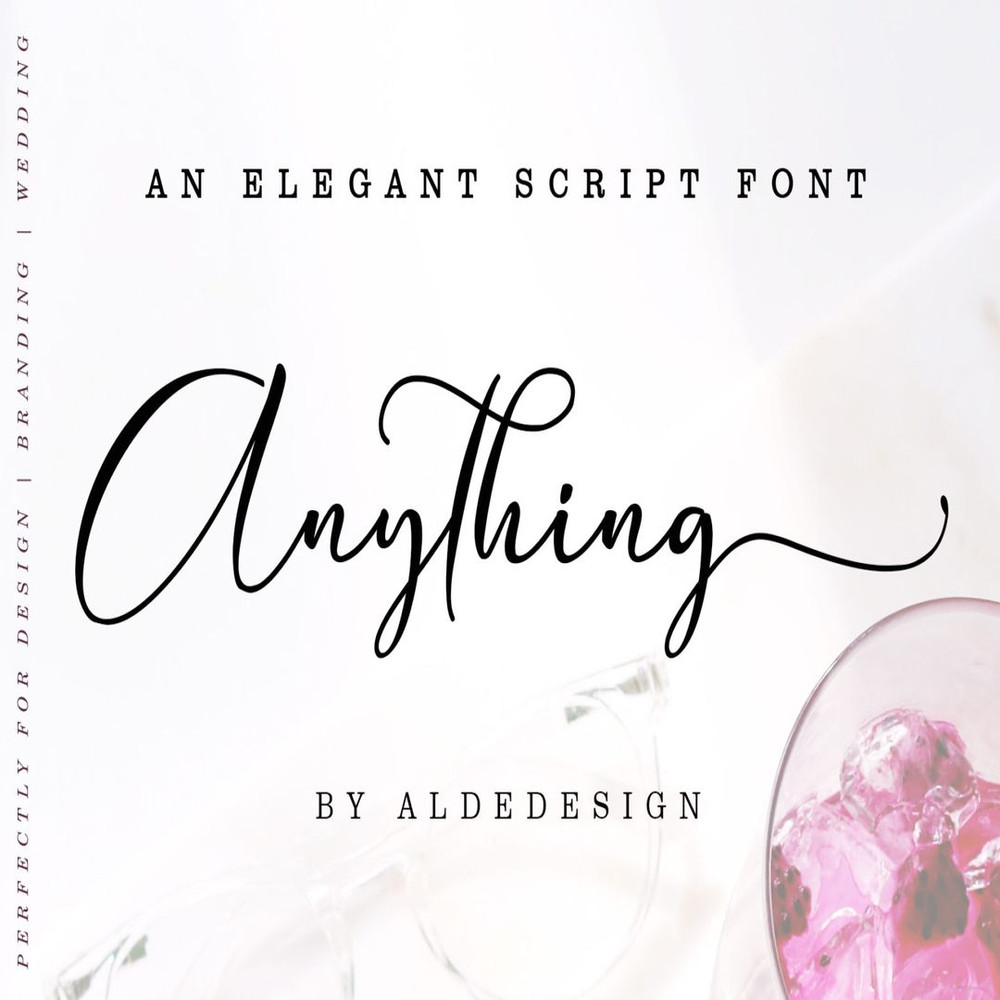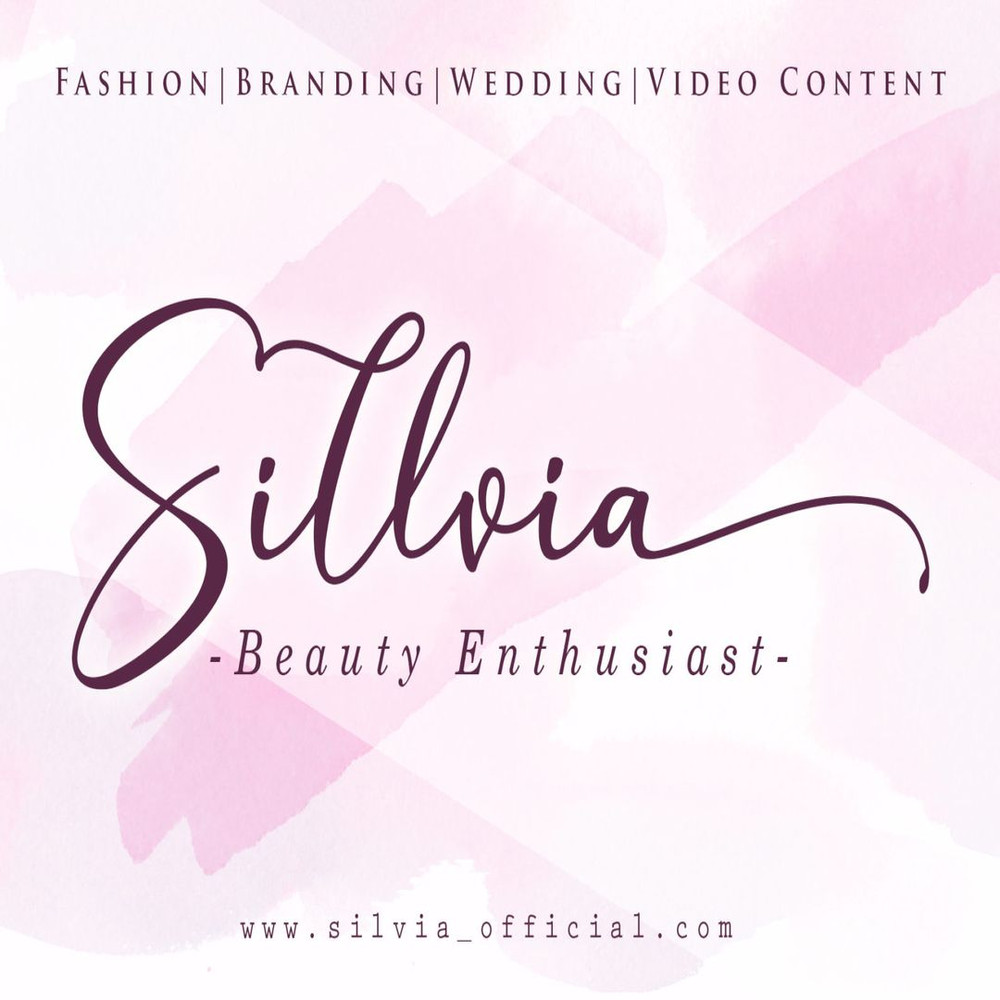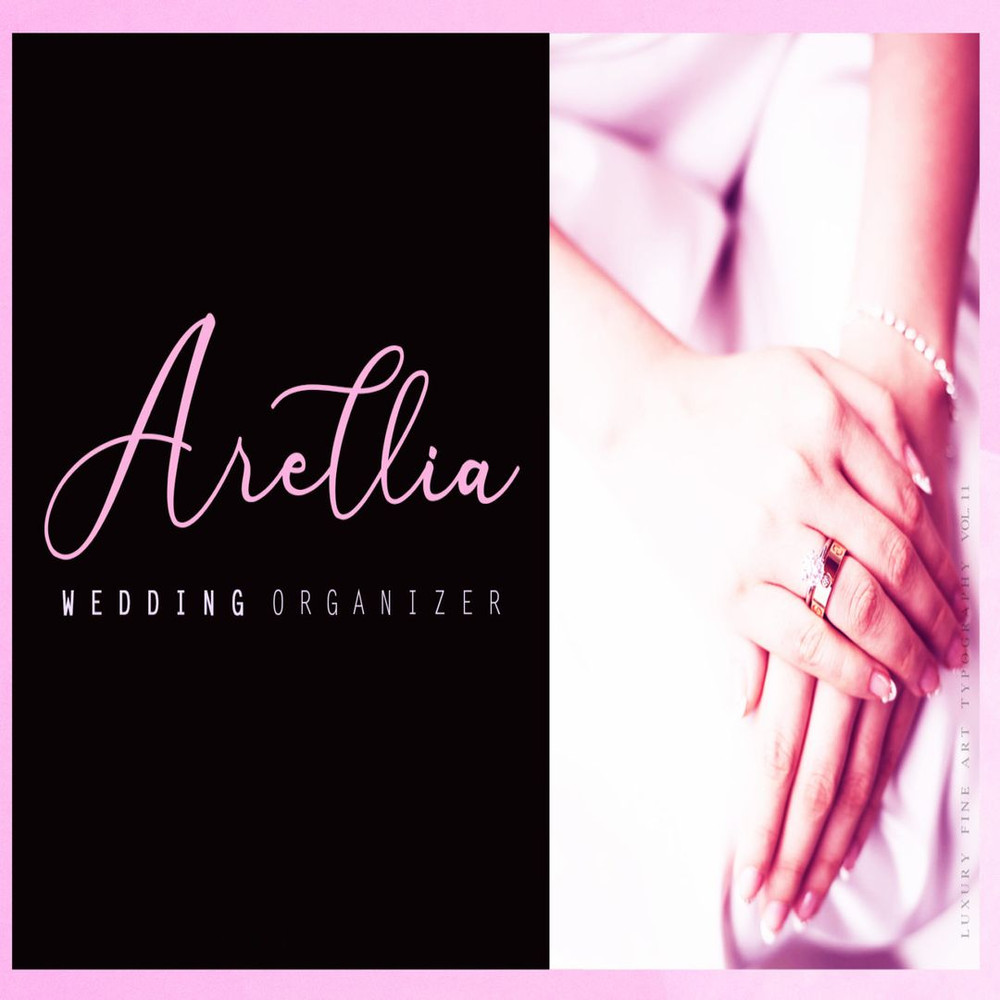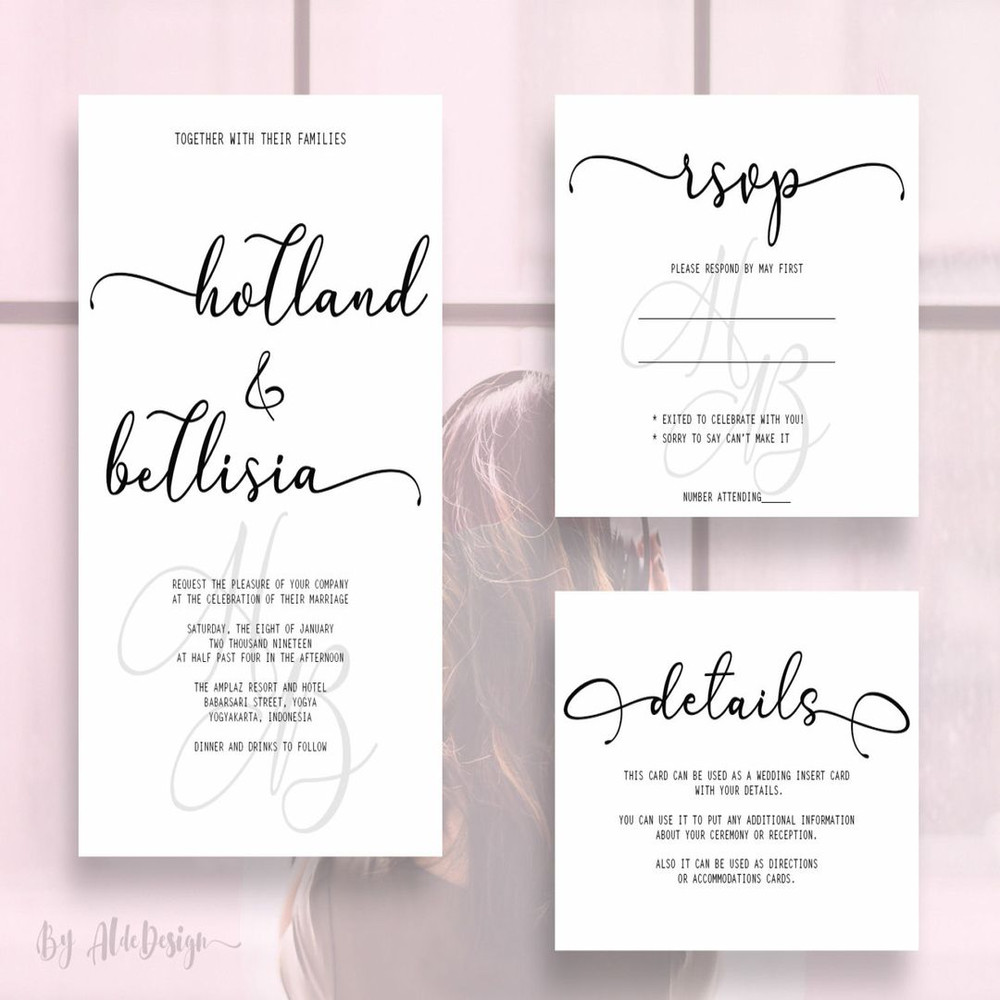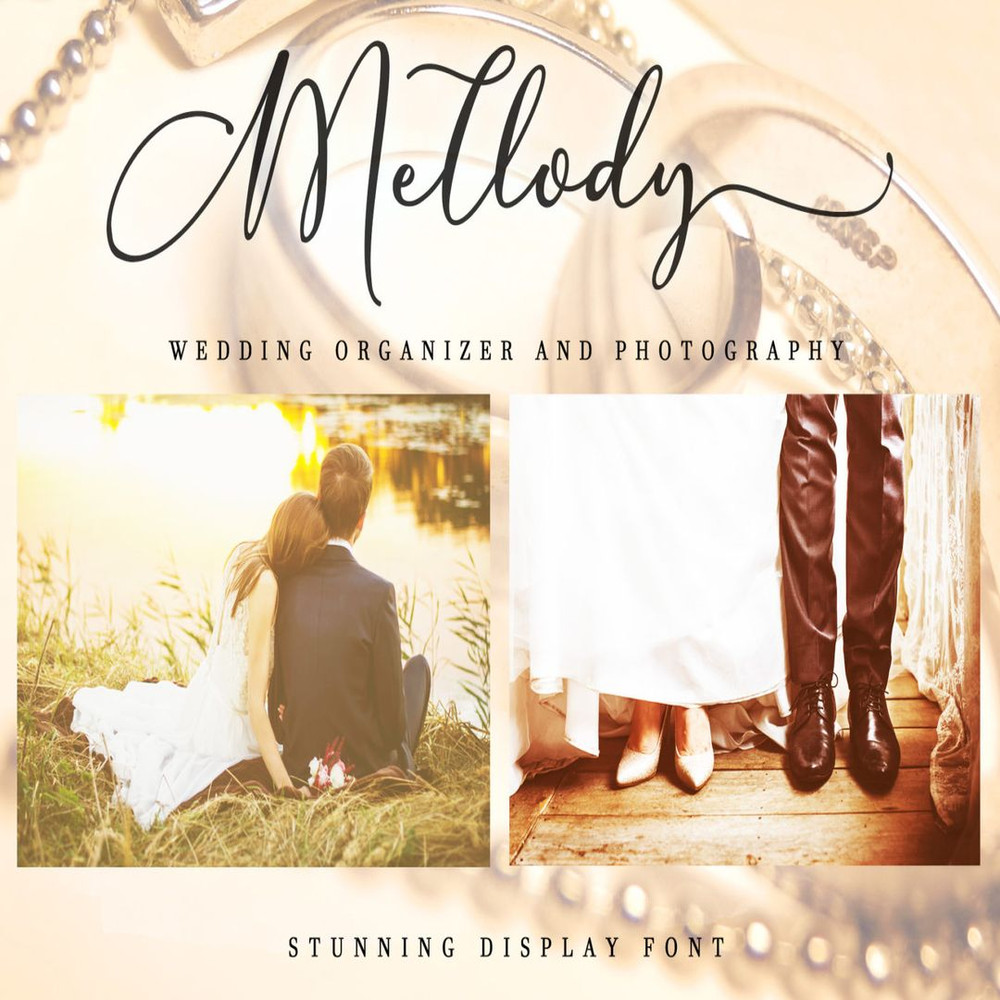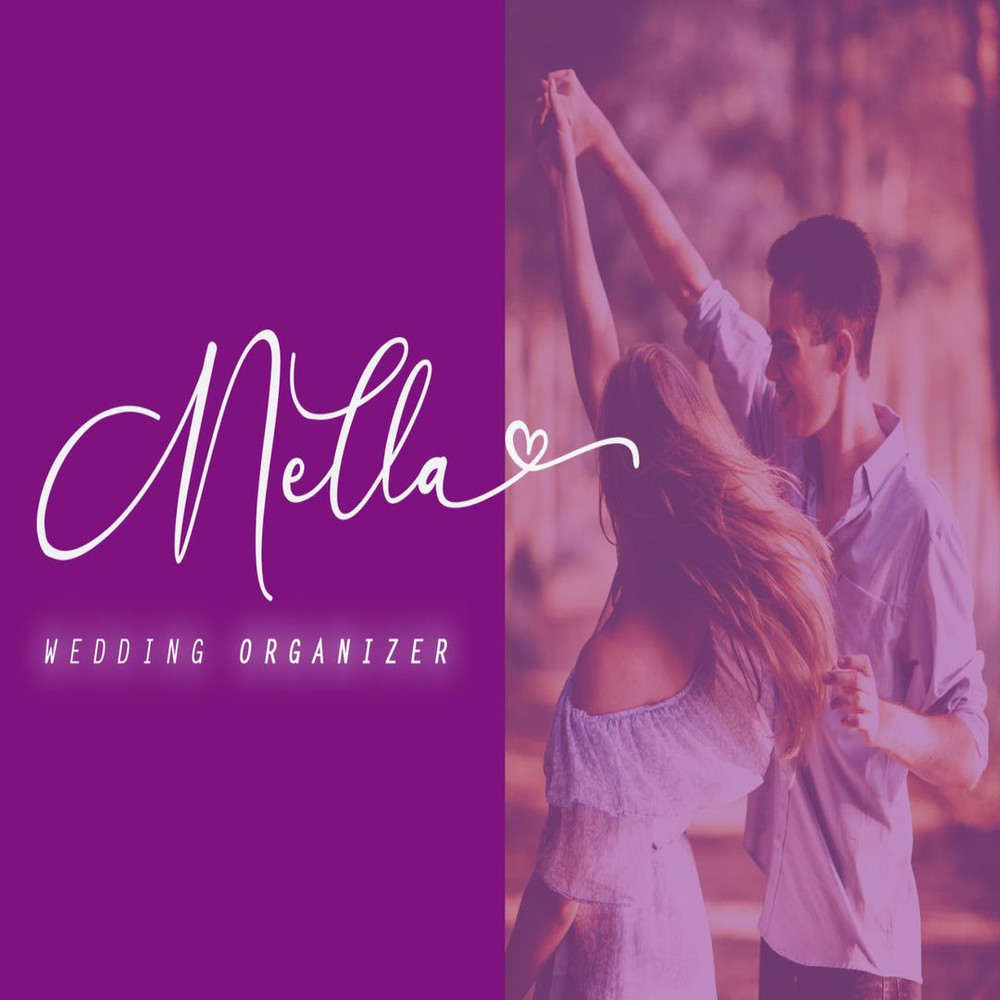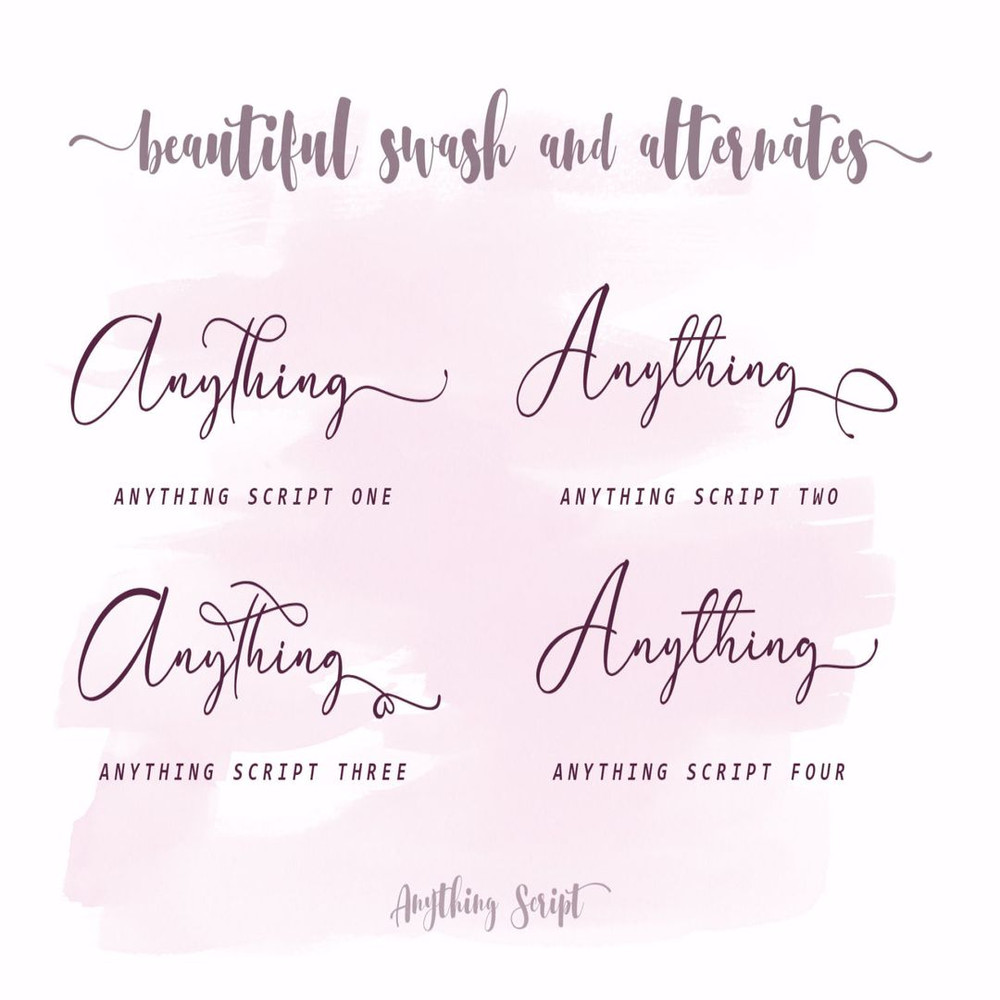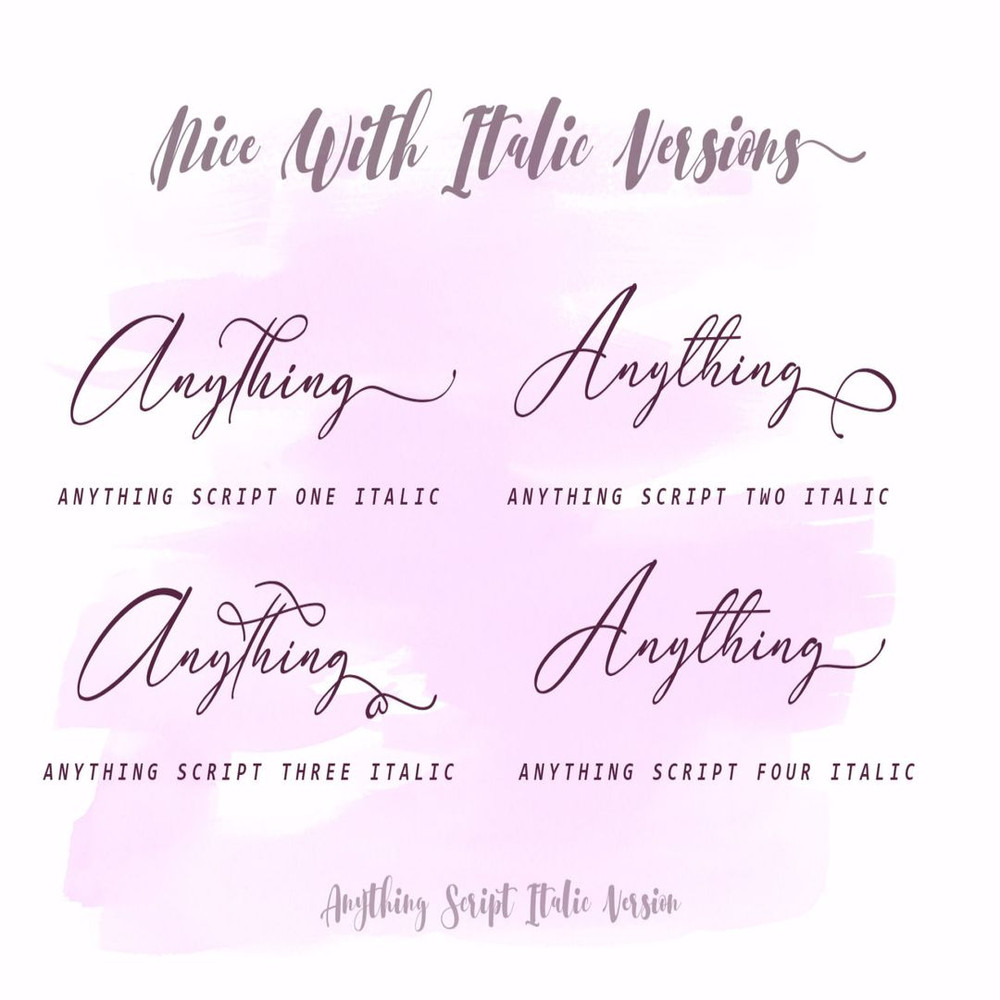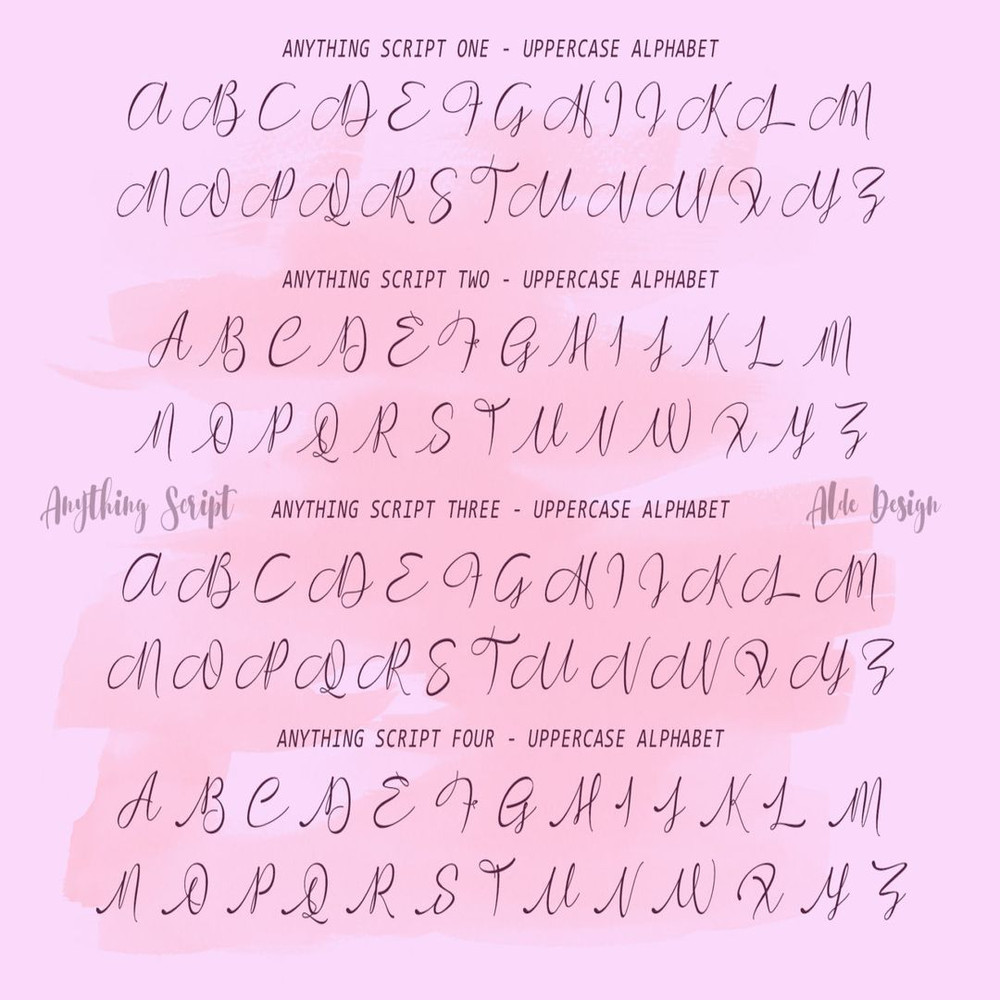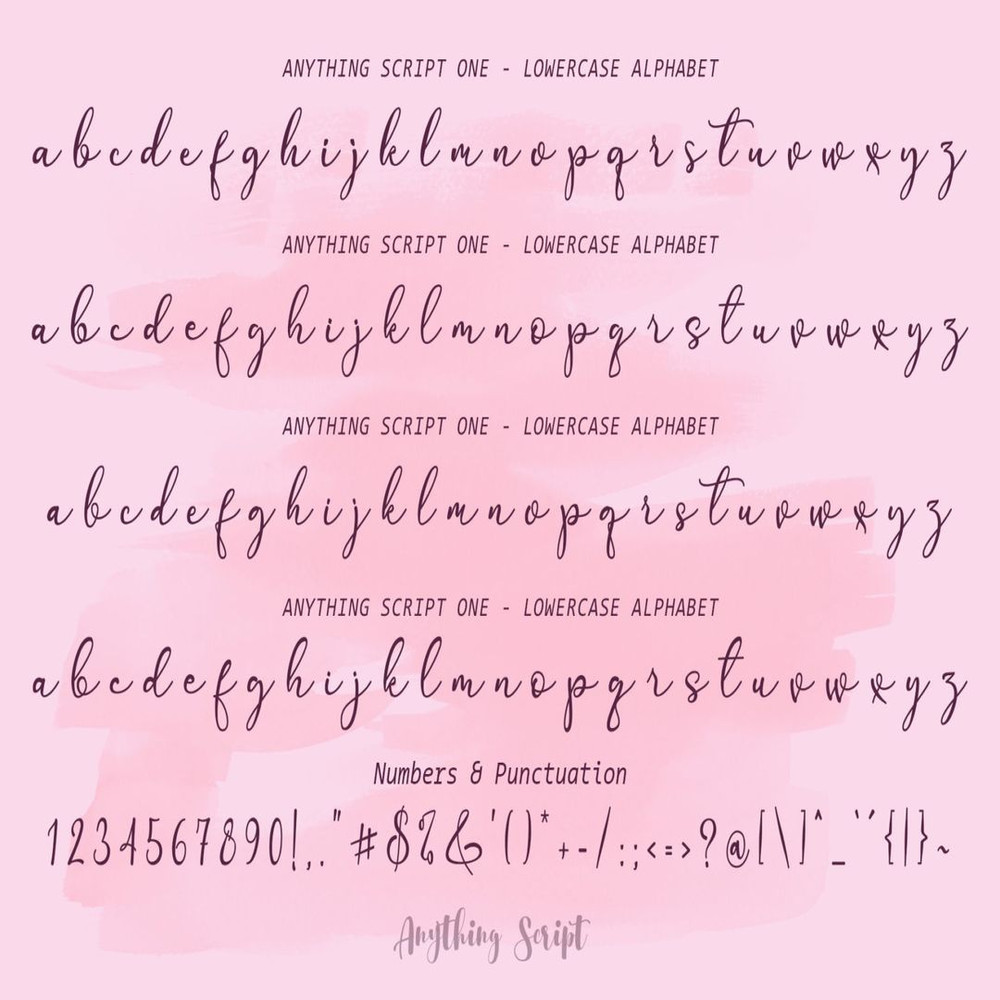
Anything Script is a stylish script font that features a varying baseline, smooth line, modern and with a depth love. For those of you who are need a touch of love and modernity for your designs or branding, it can be used for various purposes such as headings, wedding, invitation, signature, logos, branding, t-shirt, letterhead, signage, lable, news, posters, badges etc.
We design this font with OpenType features to give an artistic touch on it. This font is also applicable for numbers, punctuation, and other languages. It is also a multifunction font where you can use for a business logo, branding, wedding invitation, and anything you want.